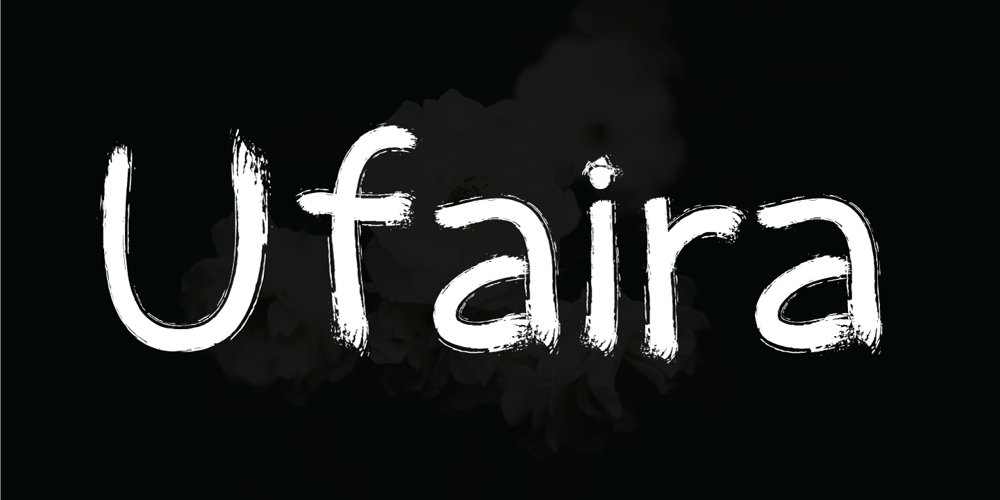
Ufaira Font Family was designed by Edy Suryadi and published by Edcreative. Ufaira contains 1 styles and family package options. Ufaira is an original handwritten font that can be used in various needs of the network such as screen printing of clothes, posters, films, magazines, banners, books, and more!